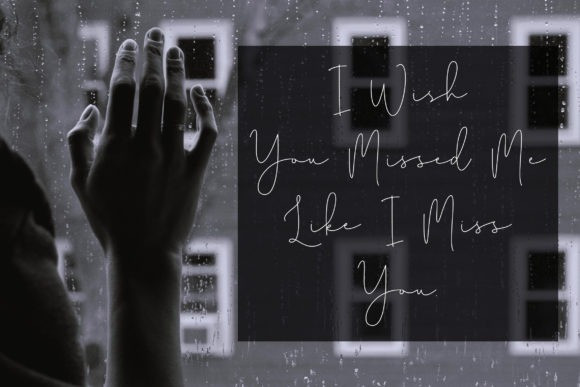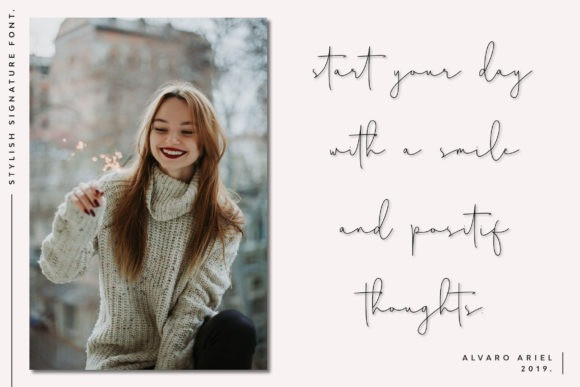
Dark Saturday Handwritten Font
Dark Saturday Handwritten Font is a serious and beautiful script with a unique style. Get inspired by its unique charm!